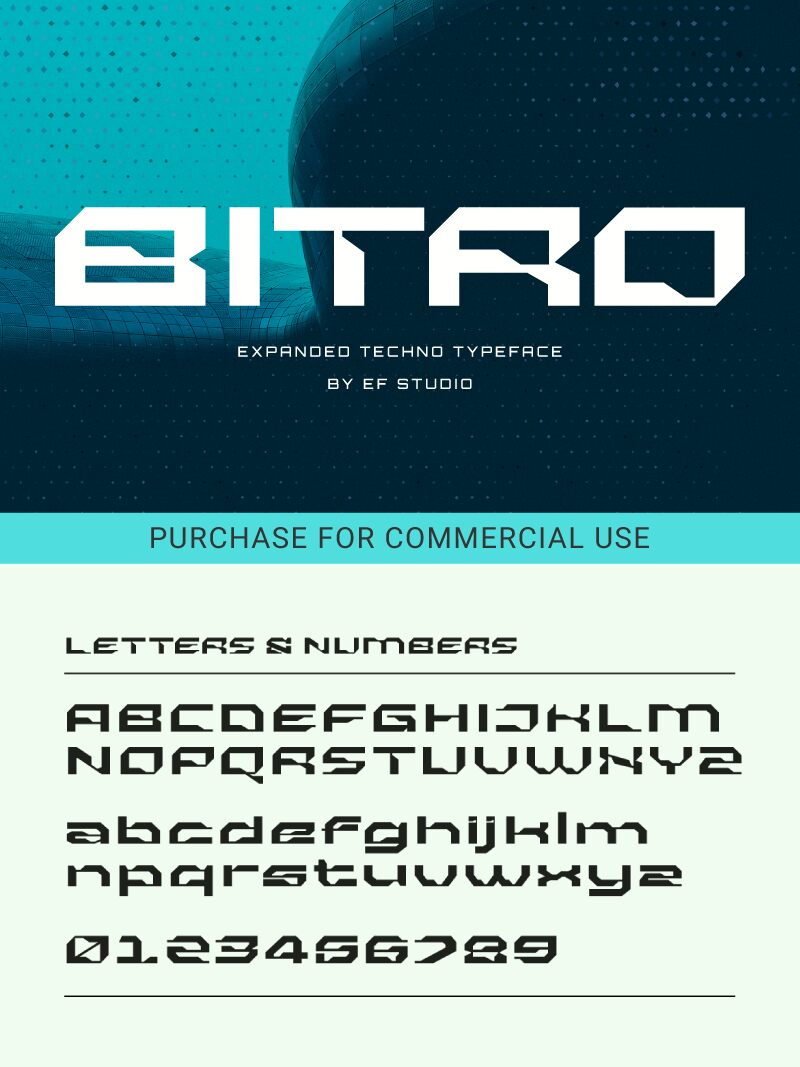
Bitro Demo
Bitro font by Ef Studio is a futuristic, angular, minimalist typeface with an expanded width. The display font mixes geometric shapes to achieve its unique look with a straight side and wide angles, capturing what’s best about a modernist aesthetic.
Use the free geometric Bitro in apparel design, movie posters, t-shirt designs, creative headings and subheadings in articles and books. It blends perfectly also into branding designs like logos as well as signage or packaging projects.